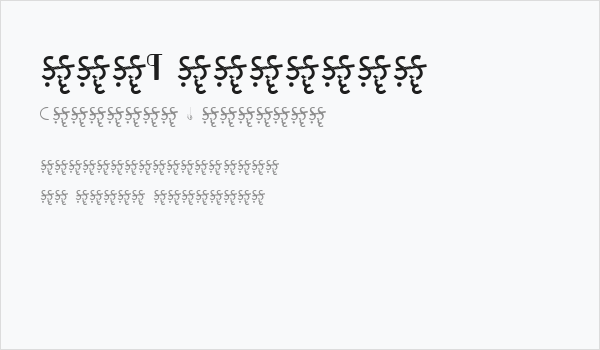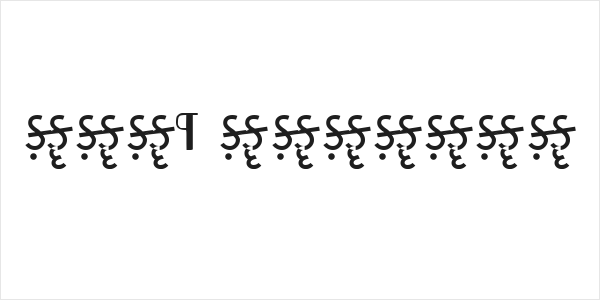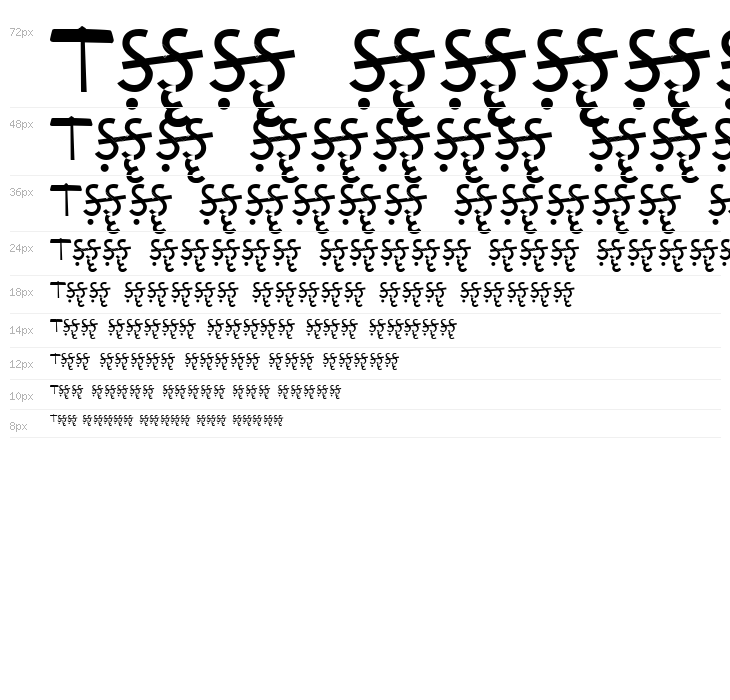
funQuandary Font
tricky
| Stile generale | Artistic, Whimsical, Creative |
| Caso d'uso | Logos, Posters, Artistic Branding |
| Progetti proposti | Ideal for creative projects such as posters, album covers, artistic branding, and any design work that seeks to stand out with a unique and unconventional style. |